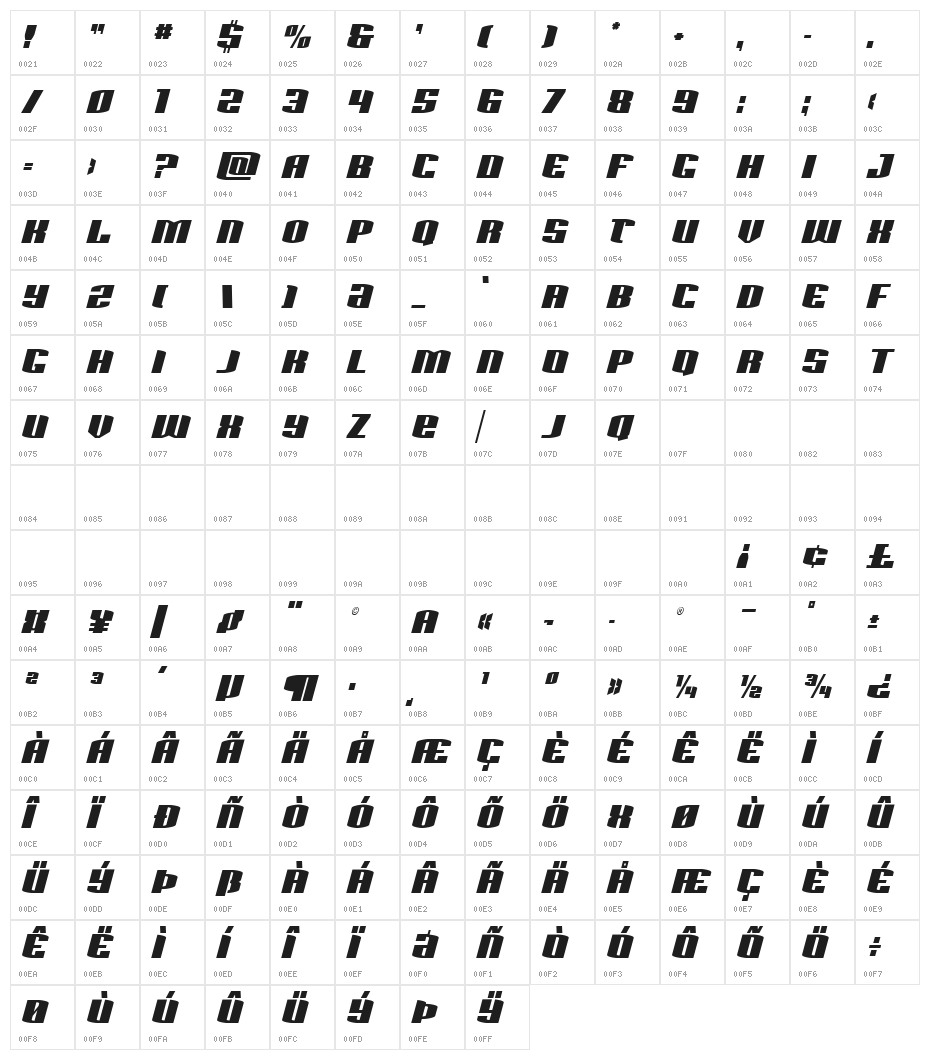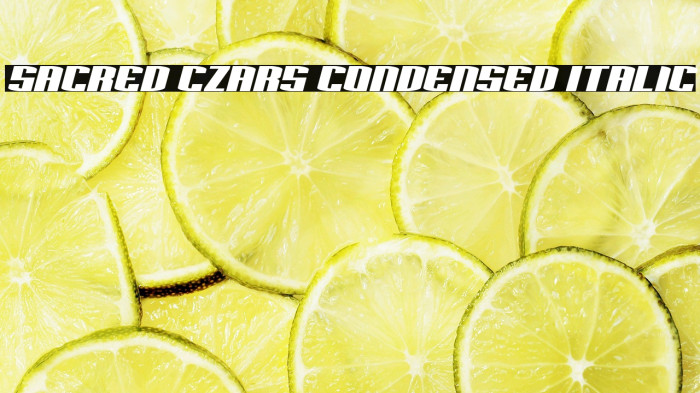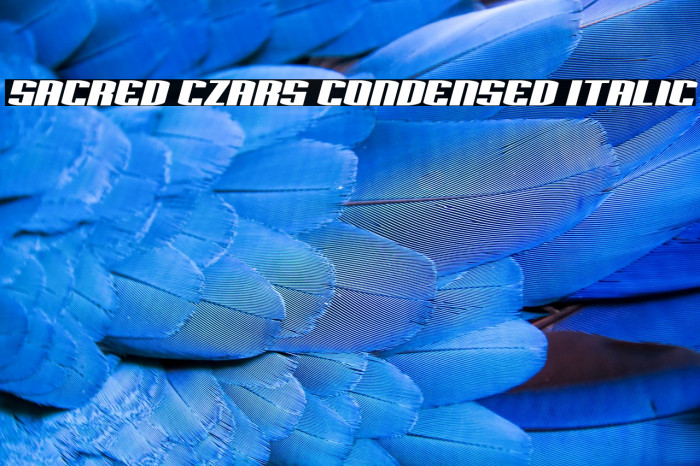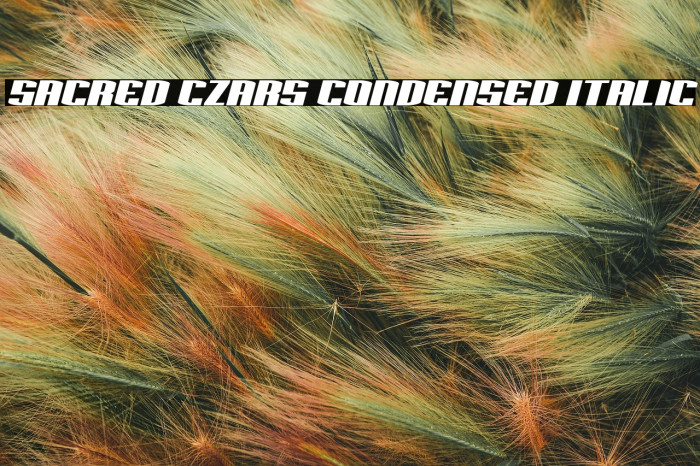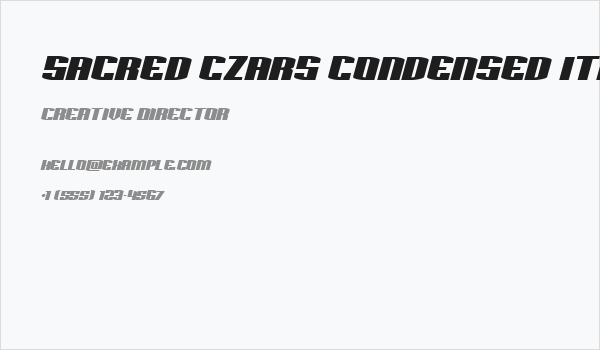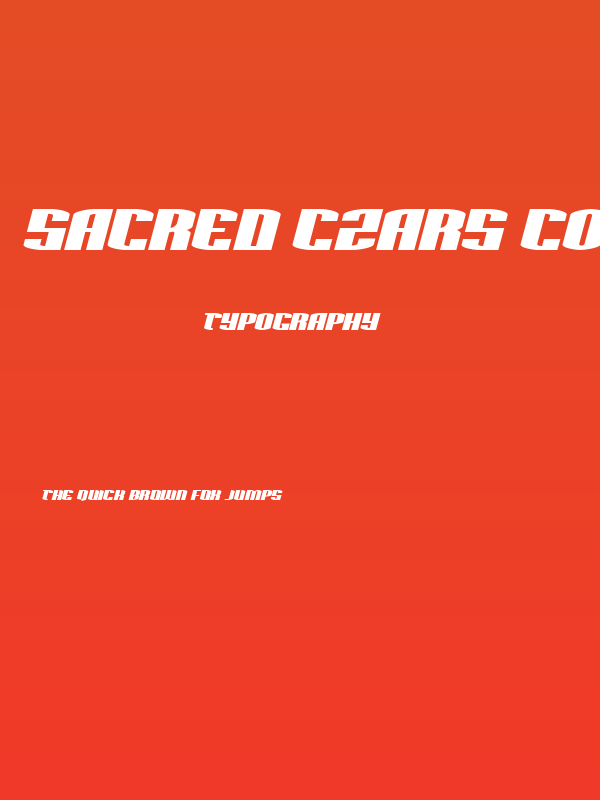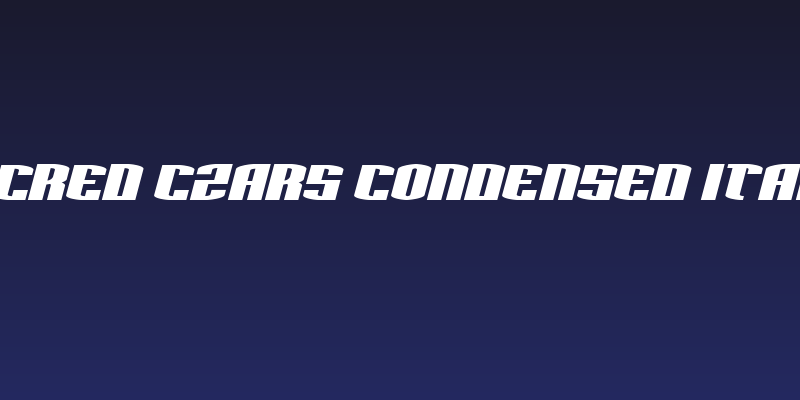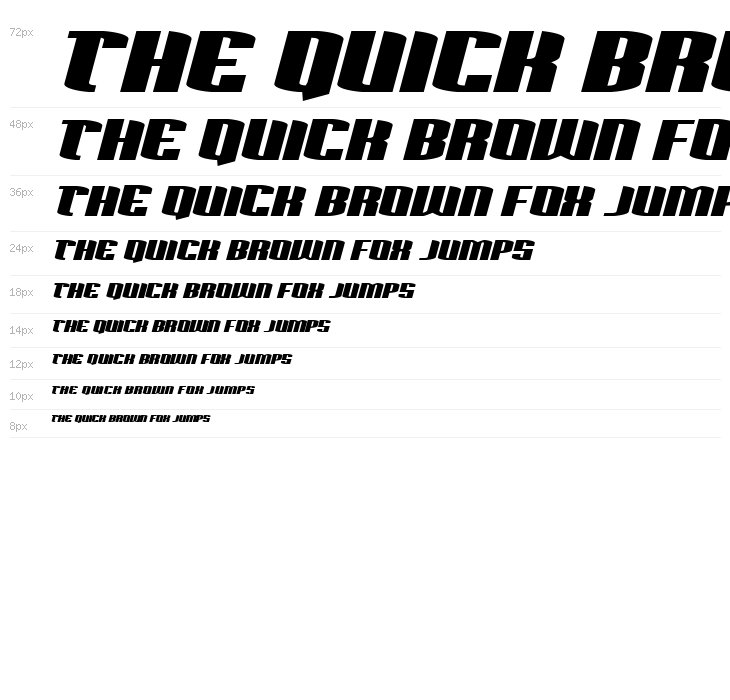
Sacred Czars Condensed Italic Font
Sacred Czars Condensed Italic Description
This font features a bold, condensed style with a distinct italic slant, giving it a dynamic and energetic appearance. The characters are tightly spaced, enhancing the compact and impactful look. The strokes are thick and consistent, providing a strong visual presence. Its angular and geometric design elements contribute to a modern and edgy aesthetic, making it suitable for attention-grabbing headlines and titles. The font's unique style is characterized by sharp edges and a slight forward tilt, which adds a sense of motion and urgency.
| Proposed Projects | Ideal for sports branding, action movie posters, dynamic advertising campaigns, and edgy graphic design projects. |